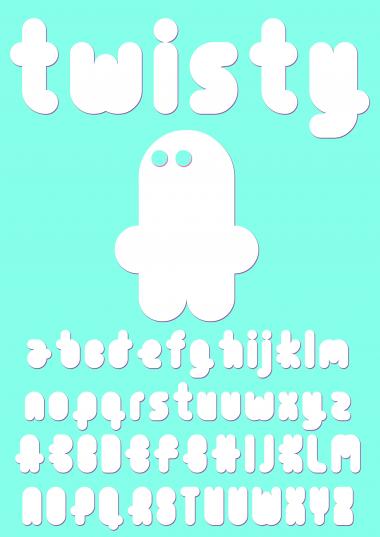
Twisty
Needless to say, I love this. 10.
Cool and cute! Waiting for the uppercase...
There it is… what a cute little font!
keep going. a to be TP for me.
Upper Case added.
Sweet :)
10/10!
I've changed the eyes.
I missed this little beauty when it first came out - glad to be able to give it my 10/10 now :)